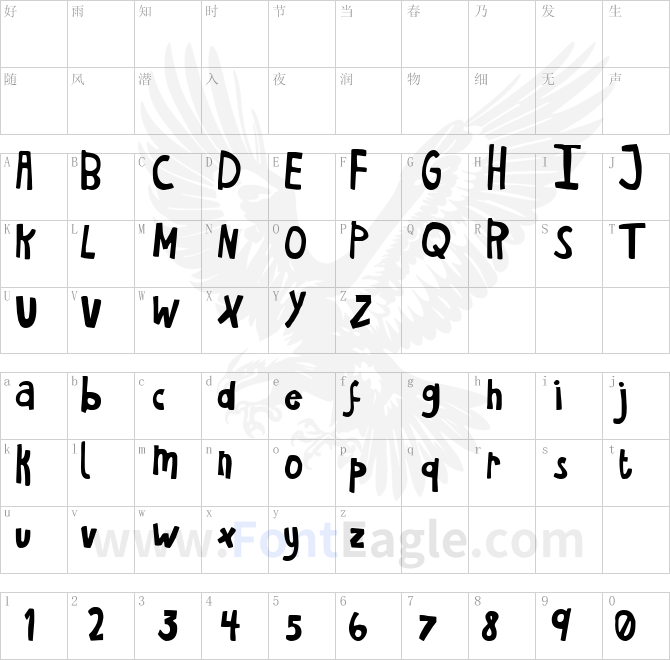
- Font name:Havent Slept in Two Days Shadow
- Font Subfamily ID:KimberlyGeswein: Havent Slept in Two Days Shadow: 2010
- Font Full Name:Havent Slept in Two Days Shadow
- Font Version:Version 1.001 2010
- Postscript:HaventSleptinTwoDaysShadow